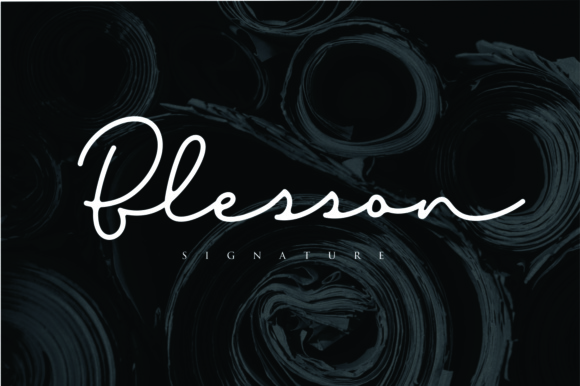
Blesson Font: Elevate Your Designs with Modern Elegance
In the world of typography, a new font has emerged to capture the attention of designers and crafters alike. Introducing Blesson Font, a modern signature typeface that exudes elegance and sophistication. With its fine strokes and refined lines, Blesson is the perfect addition to any design project that requires a touch of luxury and poise.
The Characteristics of Blesson Font
Blesson Font boasts a range of characteristics that make it an ideal choice for designers seeking to create stunning visual content. Its key features include:
- Fine Strokes: Blesson’s delicate strokes add a level of refinement to any design, making it perfect for projects that require a touch of elegance.
- Elegant Lines: The font’s smooth lines create a sense of fluidity, allowing designers to craft beautiful, cohesive designs that capture the eye.
- Modern Aesthetic: Blesson’s contemporary style ensures that designs feel fresh and up-to-date, making it an excellent choice for brands looking to revamp their visual identity.
Endless Design Possibilities with Blesson Font
Blesson Font is incredibly versatile, making it suitable for a wide range of design applications. Some of the many projects that can be elevated with Blesson include:
- Logos: Create a lasting impression with a custom logo that showcases your brand’s personality and style.
- Invitations: Make your guests feel special with beautifully designed invitations that set the tone for your event.
- Stationery: Elevate your brand’s correspondence with elegant letterheads, business cards, and envelopes.
- Wedding Designs: Make your special day even more unforgettable with bespoke wedding stationery, decor, and more.
- Social Media Posts: Stand out in a crowded feed with eye-catching social media graphics that showcase your brand’s unique voice.
- Advertisements: Grab attention and drive engagement with bold, beautifully designed ads that showcase your message.
- Product Packaging: Make your products feel premium with custom packaging that reflects your brand’s values and aesthetic.
Why Choose Blesson Font?
With so many fonts available, why choose Blesson? Here are just a few reasons why designers and crafters are falling in love with this modern signature typeface:
- Unique Style: Blesson’s distinctive aesthetic sets it apart from other fonts, ensuring your designs stand out from the crowd.
- Ease of Use: Blesson is incredibly easy to use, making it perfect for designers of all skill levels.
- Customization: With Blesson, you can experiment with a range of design possibilities, from subtle tweaks to bold, creative expressions.
Tips for Getting the Most Out of Blesson Font
To maximize the impact of Blesson Font, consider the following design tips:
- Experiment with Pairings: Combine Blesson with other fonts to create unique, visually appealing combinations.
- Play with Size and Scale: Use Blesson in a range of sizes to create visual hierarchy and emphasize key design elements.
- Don’t be Afraid to Get Creative: Blesson is a versatile font that lends itself to creative experimentation – don’t be afraid to push the boundaries of what’s possible!
Blesson Font is a game-changer for designers and crafters seeking to elevate their visual content with modern elegance. With its fine strokes, elegant lines, and versatile design possibilities, Blesson is the perfect addition to any project. Whether you’re creating logos, invitations, stationery, or social media posts, Blesson Font is sure to make your designs shine. So why wait? Discover the power of Blesson Font today and take your designs to the next level!